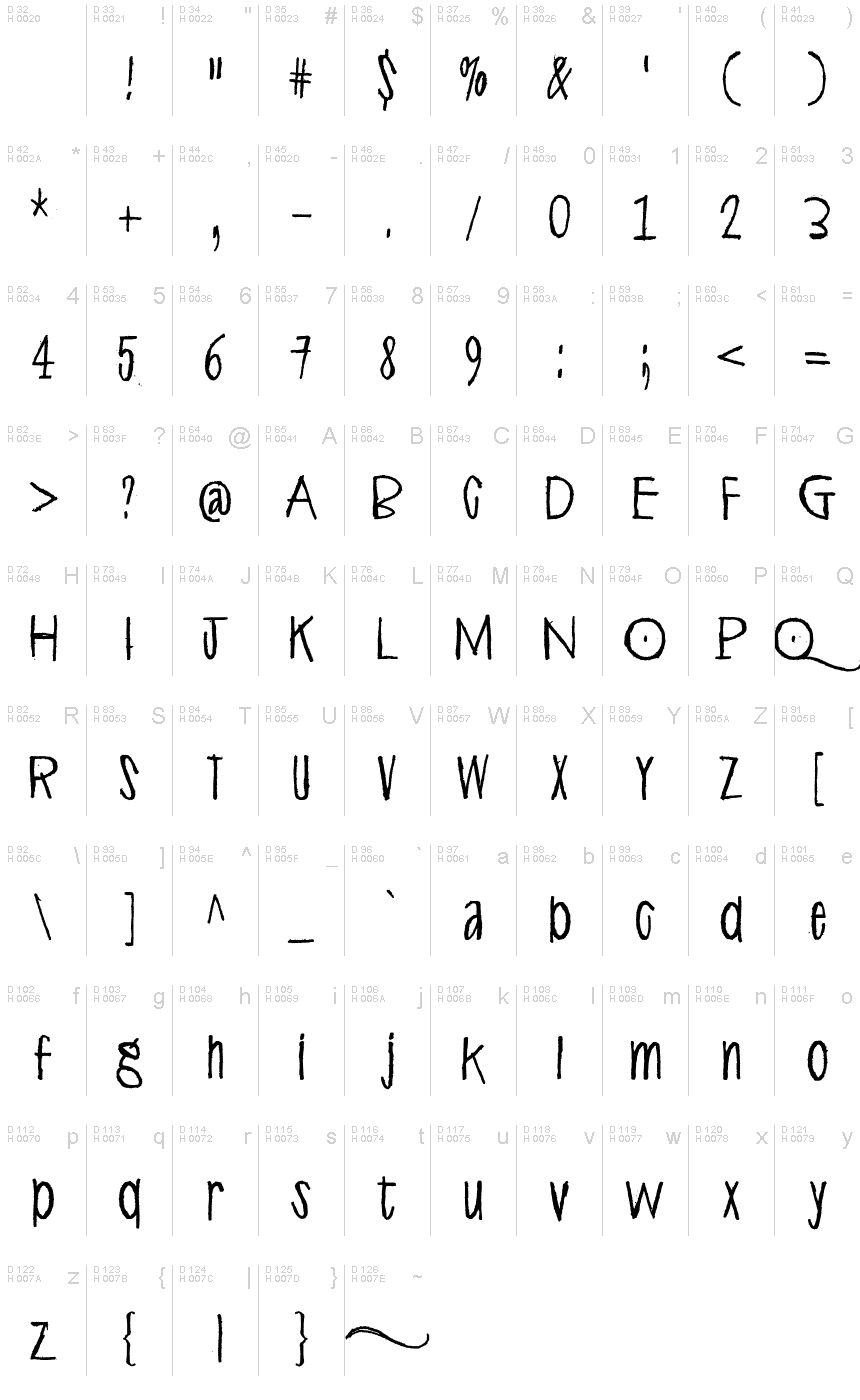
Alphabet Minus Eighty by junkohanhero is a semi-light, condensed script font with a trashy and scary style that exudes an edgy and spooky vibe. With its unique and creative design, this font is perfect for horror movie posters, Halloween-themed party invitations, or even punk rock album covers. Its condensed width makes it ideal for smaller spaces like social media graphics or product labels. Alphabet Minus Eighty will definitely make your projects stand out from the crowd and leave a lasting impression on your audience. So why not give it a try?